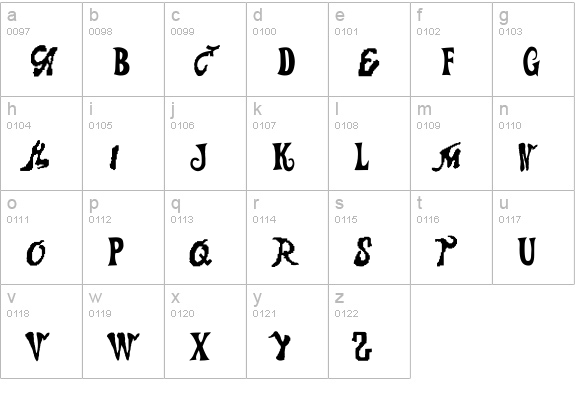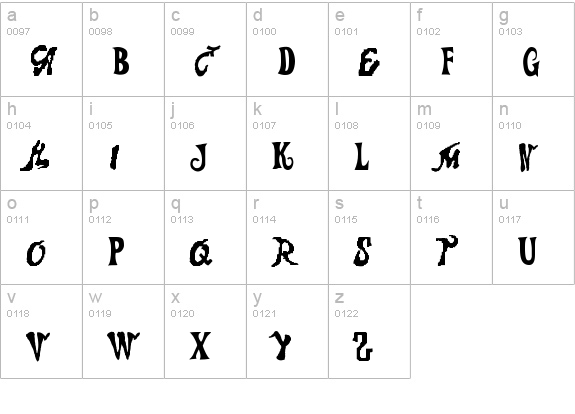
Aerosmith Font Details
The Aerosmith font is a bold and dynamic typeface that exudes rock 'n' roll energy and attitude. With its edgy and stylish design, this font is perfect for making a statement in your designs. Whether you're creating posters, album covers, or promotional materials, Aerosmith will add a touch of rebellious flair to your projects. Best of all, Aerosmith is available for free download at FontsMarket.com. You can easily access this eye-catching font and incorporate it into your work without any cost. Don't miss out on the opportunity to add a touch of rockstar coolness to your designs with the Aerosmith font - download it today!